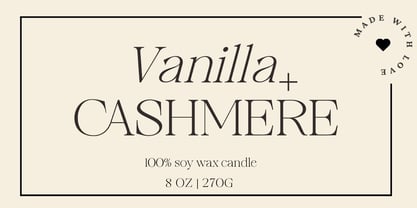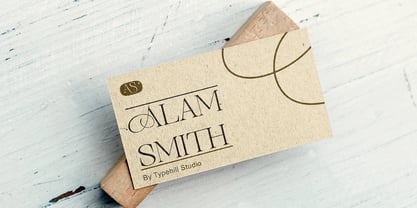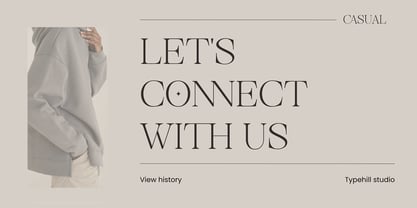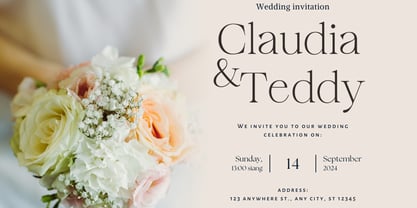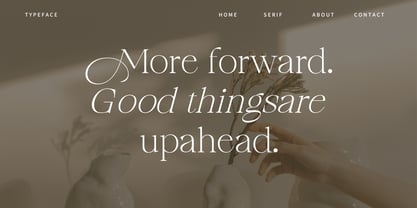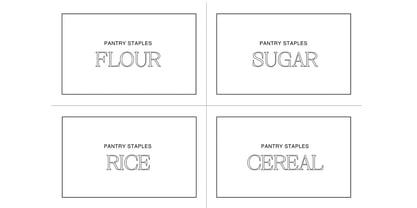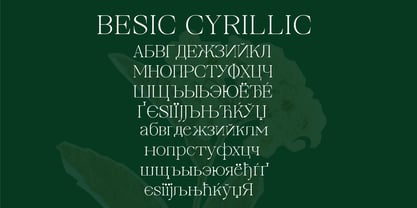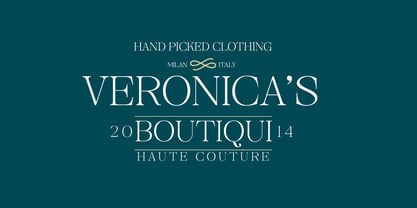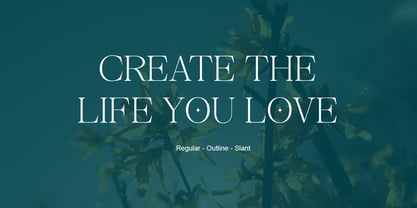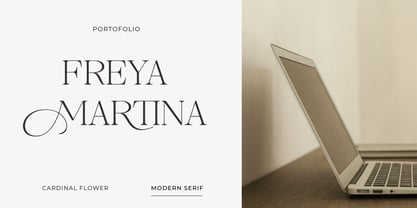
Cardinal Flower
The Cardinal Flower Font Family was designed by Teuku Fahruddin and published by Typehill Studio. Cardinal Flower contains 4 styles and family package options. More about this family
Cardinal Flower attracts such a subtle, clean, feminine, sensual, glamorous, simple and very readable typeface. The classic style is perfect to apply in various formal forms such as invitations, labels, menus, Logos, fashion, make up, stationery, letterpress, romantic novels, magazines, books, greeting / wedding cards, packaging, labels
Cardinal Flower also features a strong neoclassical serif typeface with high contrast, cool, stylish and unique look with alternative fonts, Ligatures, and multilingual support